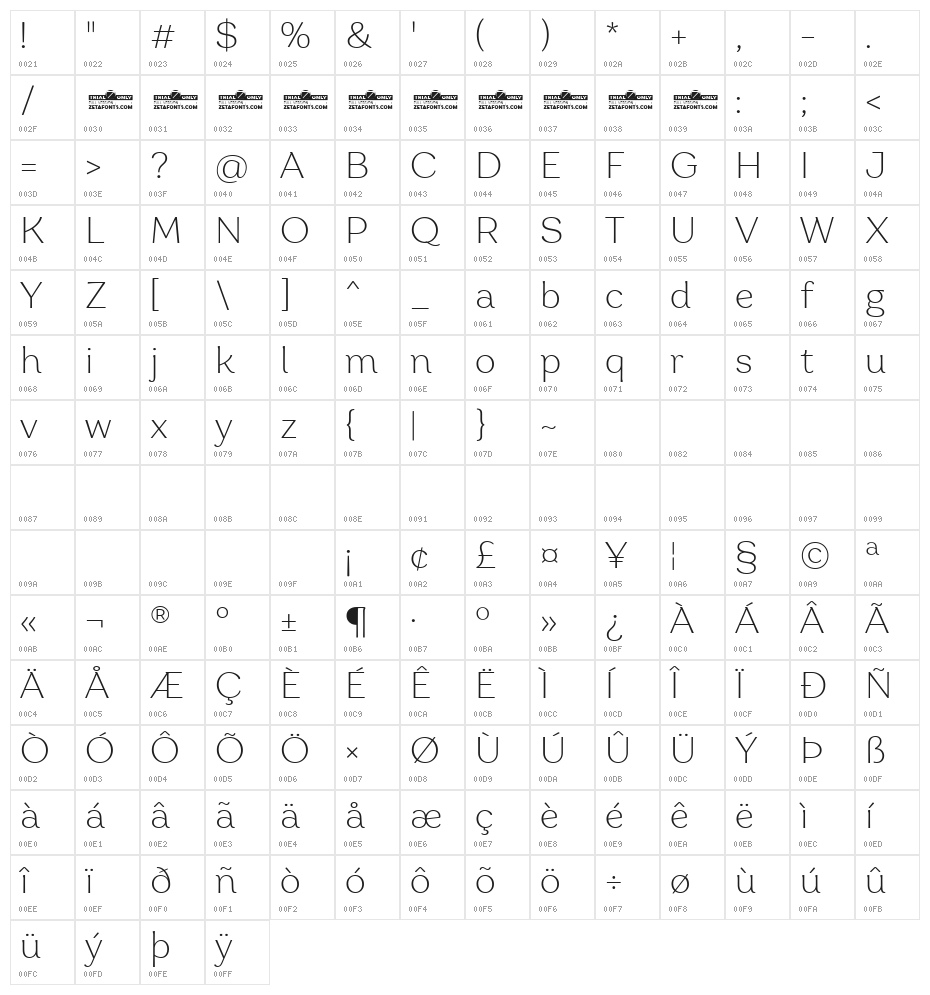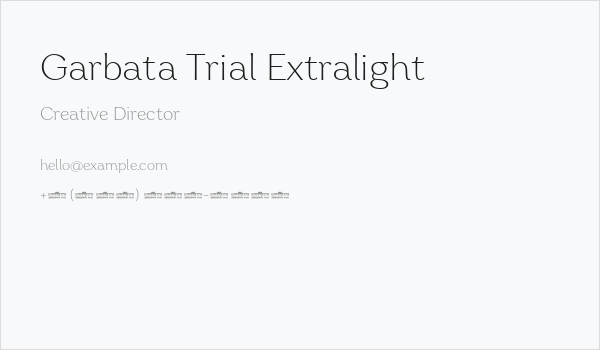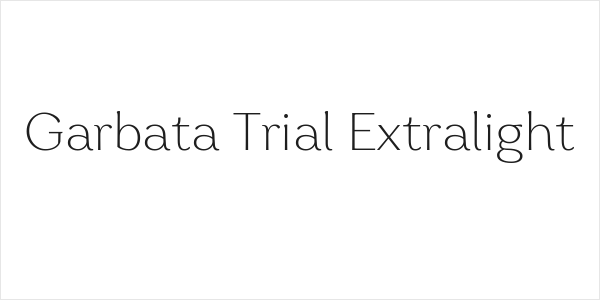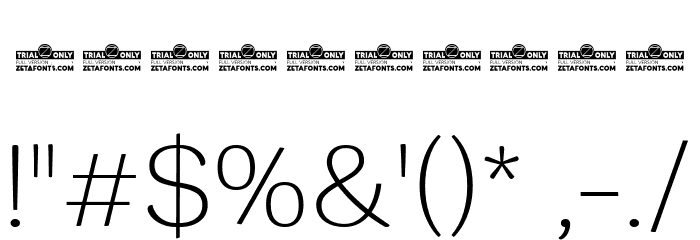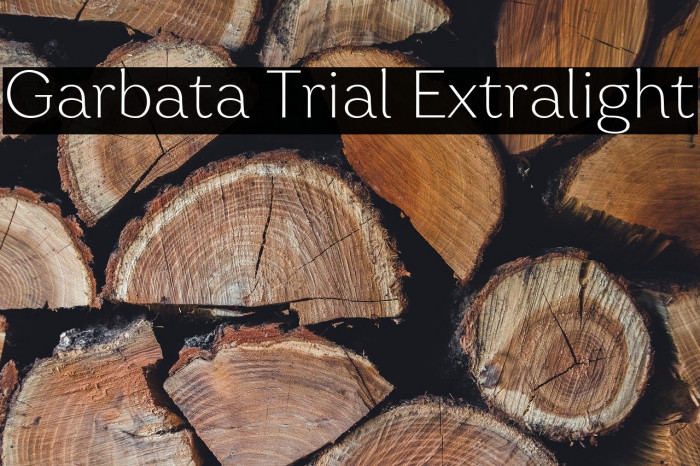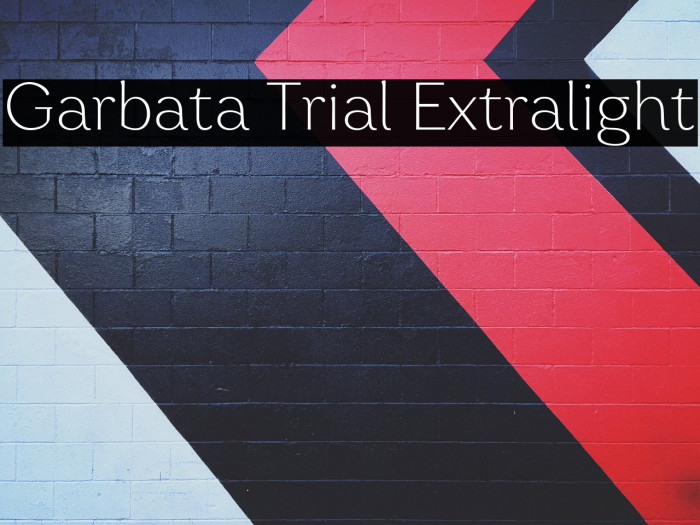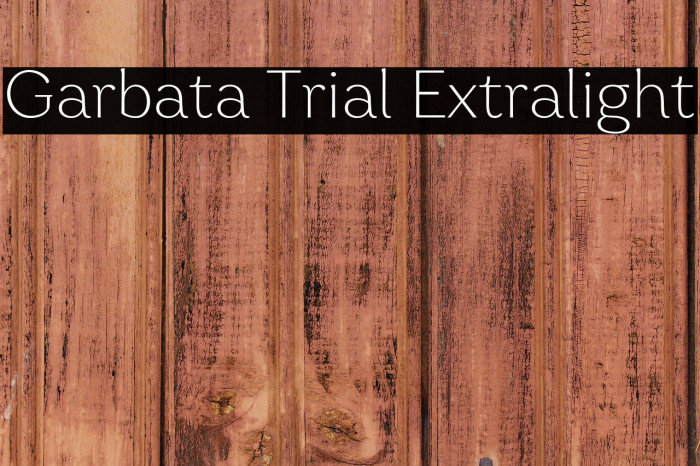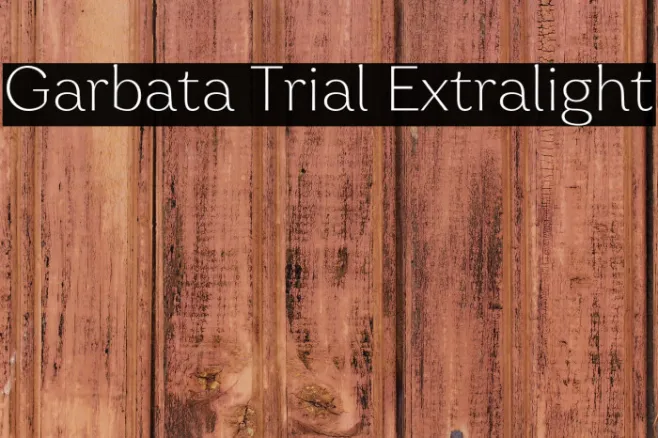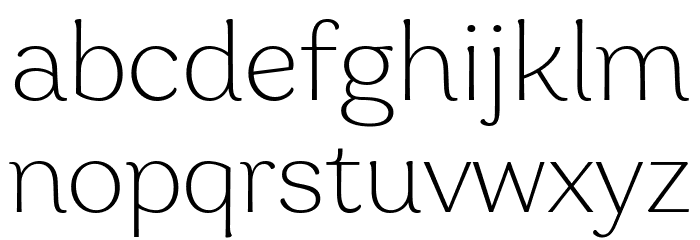
Garbata Trial Extralight Font
Garbata Trial Extralight Description
This font features an elegant and refined design with thin, delicate strokes that convey a sense of sophistication and modernity. The characters are well-proportioned, with a clean and minimalist aesthetic that enhances readability. The uppercase letters are slightly taller than the lowercase, providing a subtle contrast that adds to the font's visual appeal. The numerals and special characters are designed with the same attention to detail, ensuring consistency across all elements. This font's lightweight nature makes it ideal for projects that require a touch of elegance without overwhelming the design.
| Proposed Projects | Ideal for luxury branding, high-end fashion magazines, elegant invitations, and minimalist website designs. |